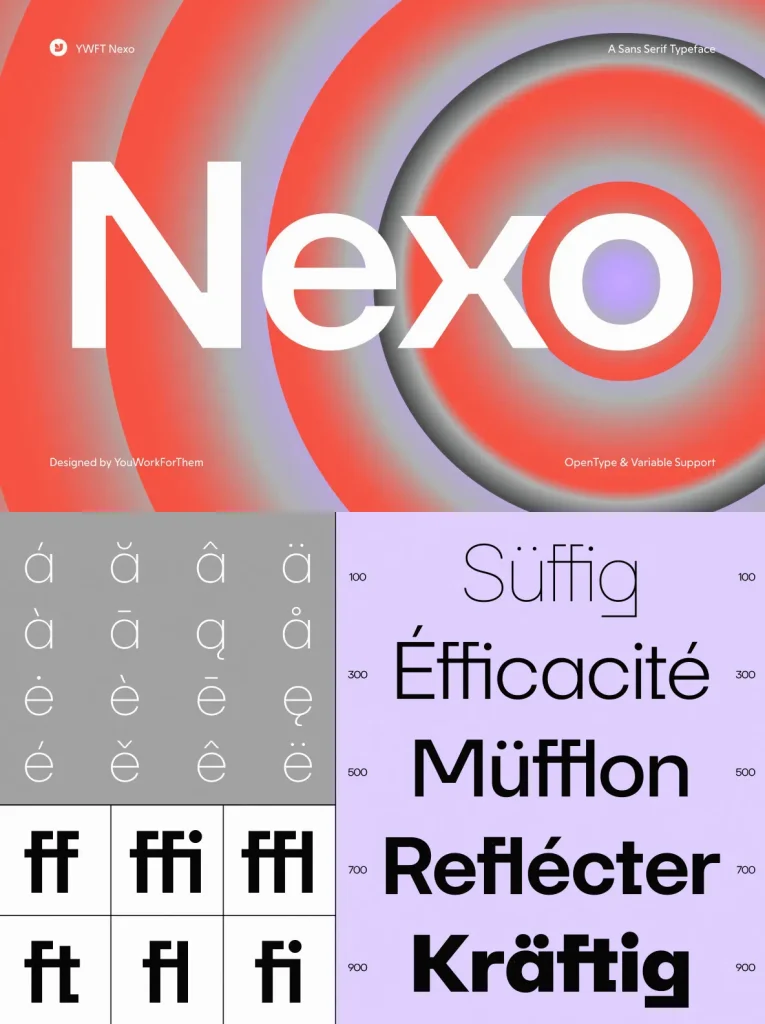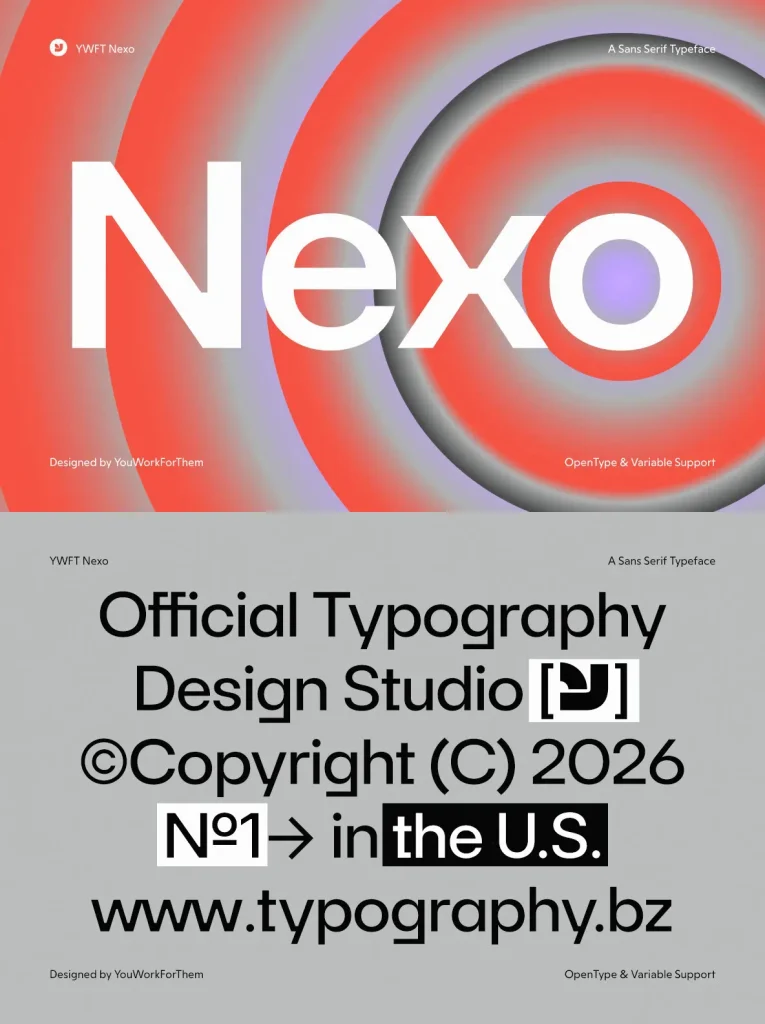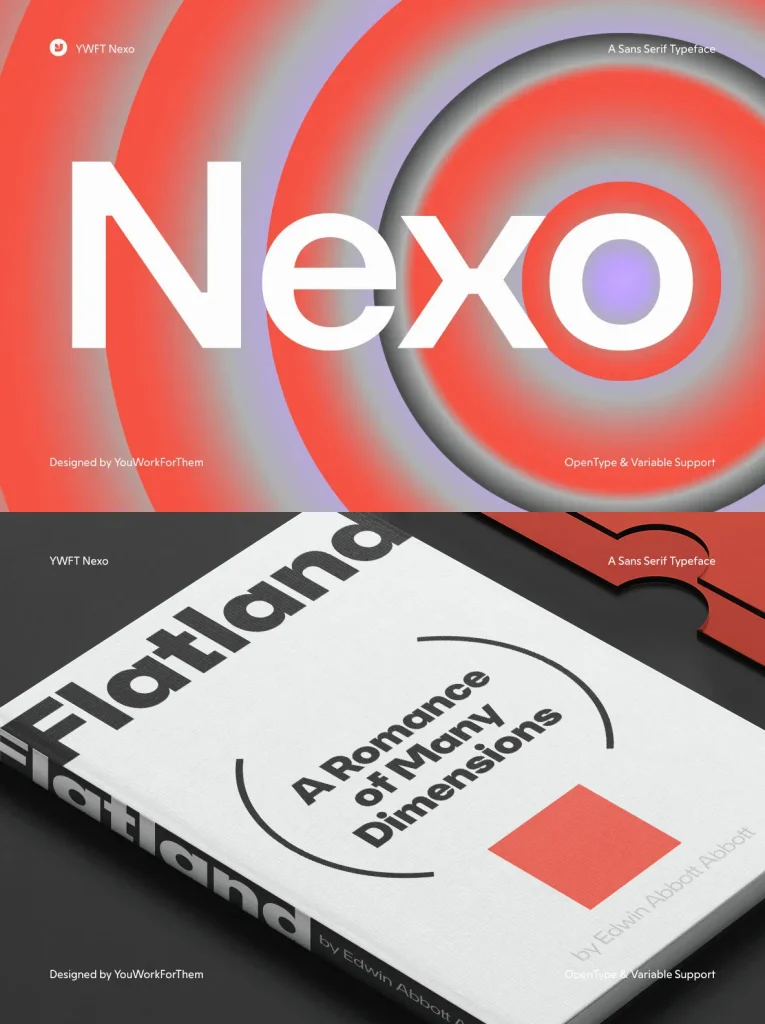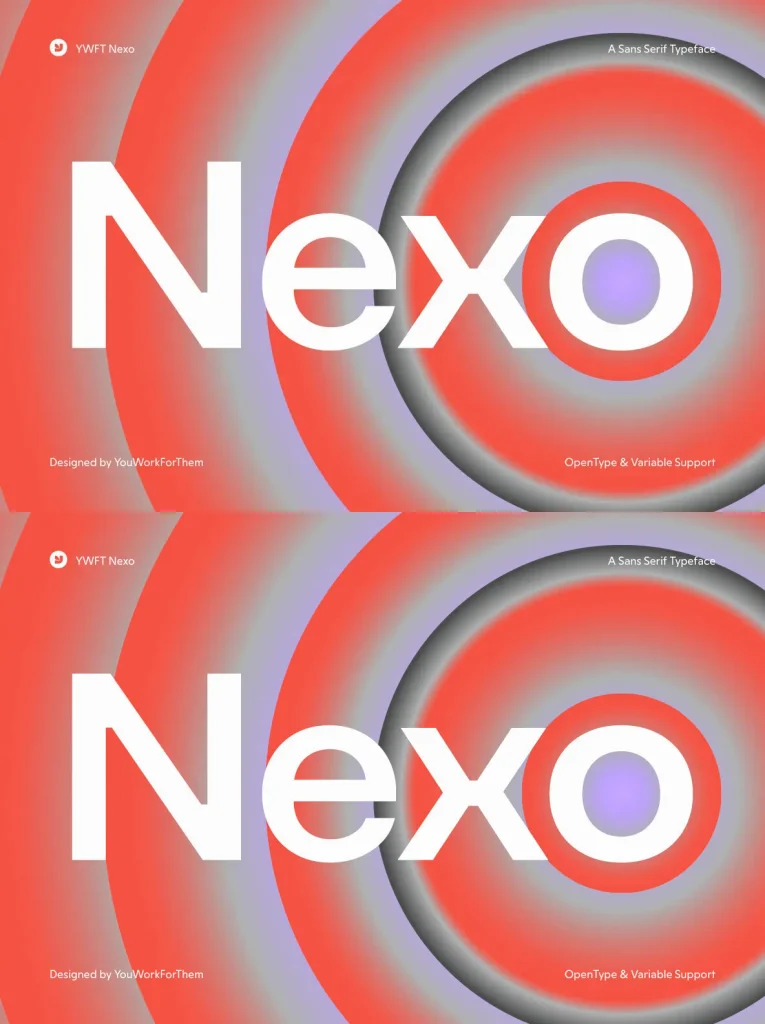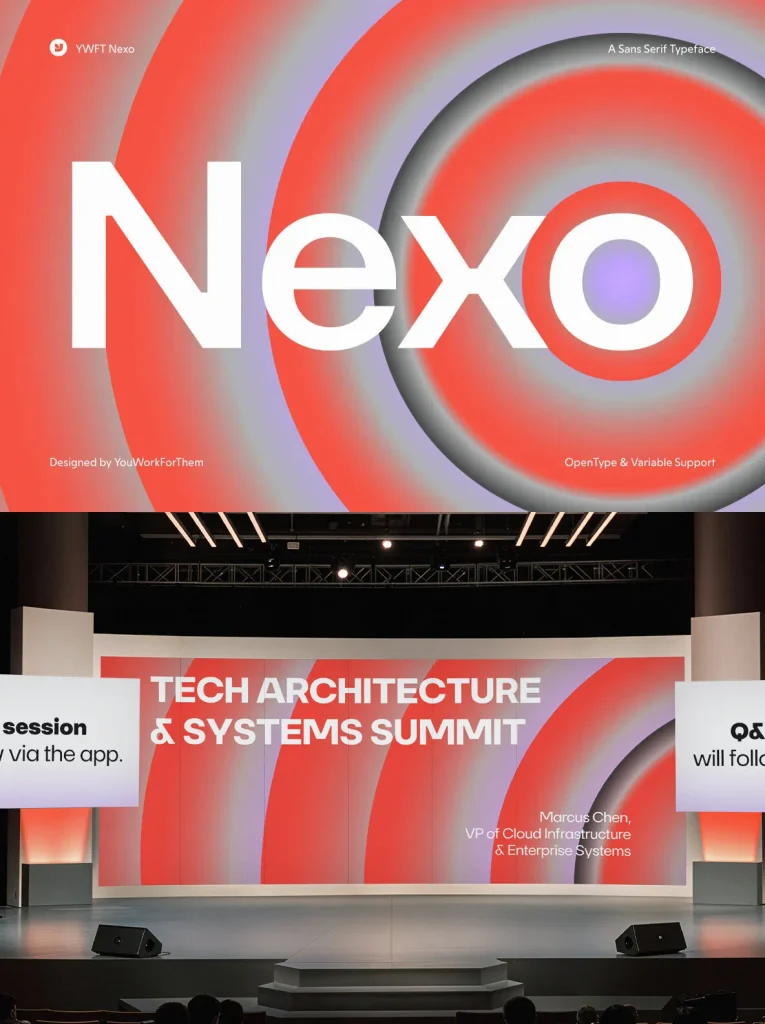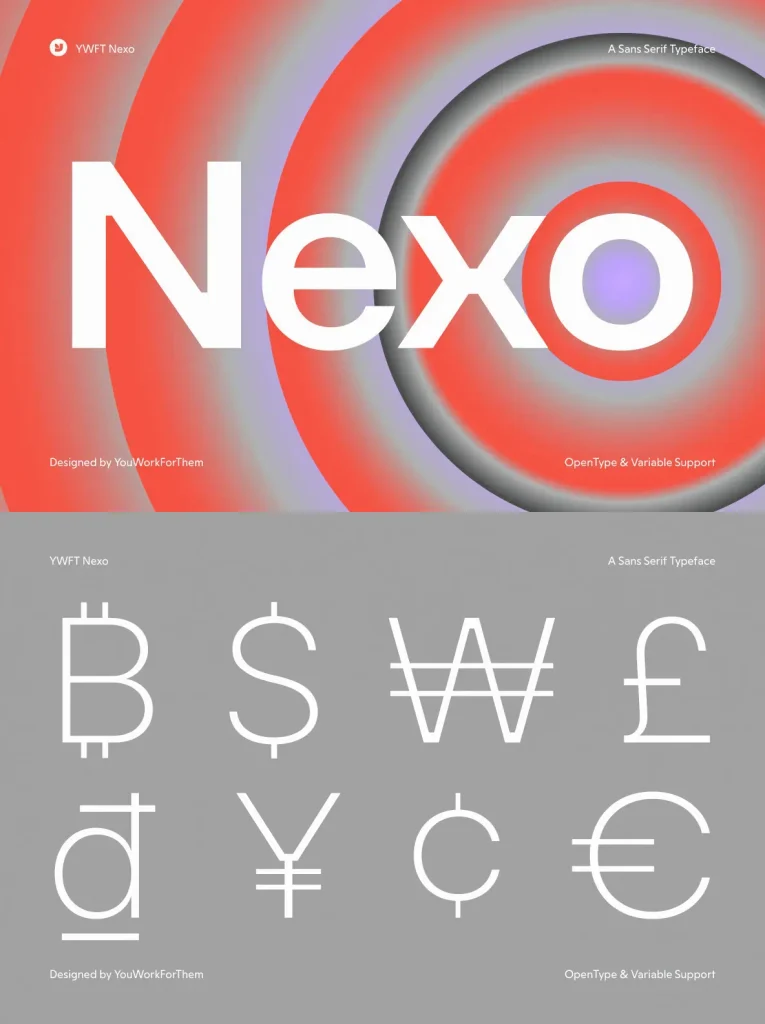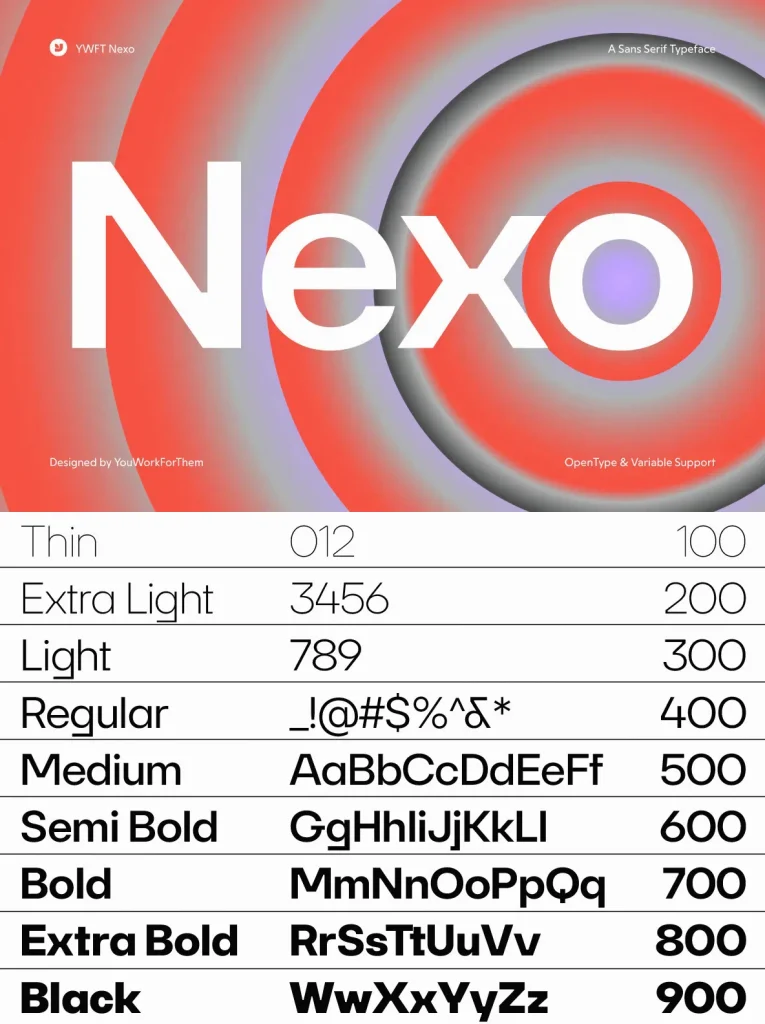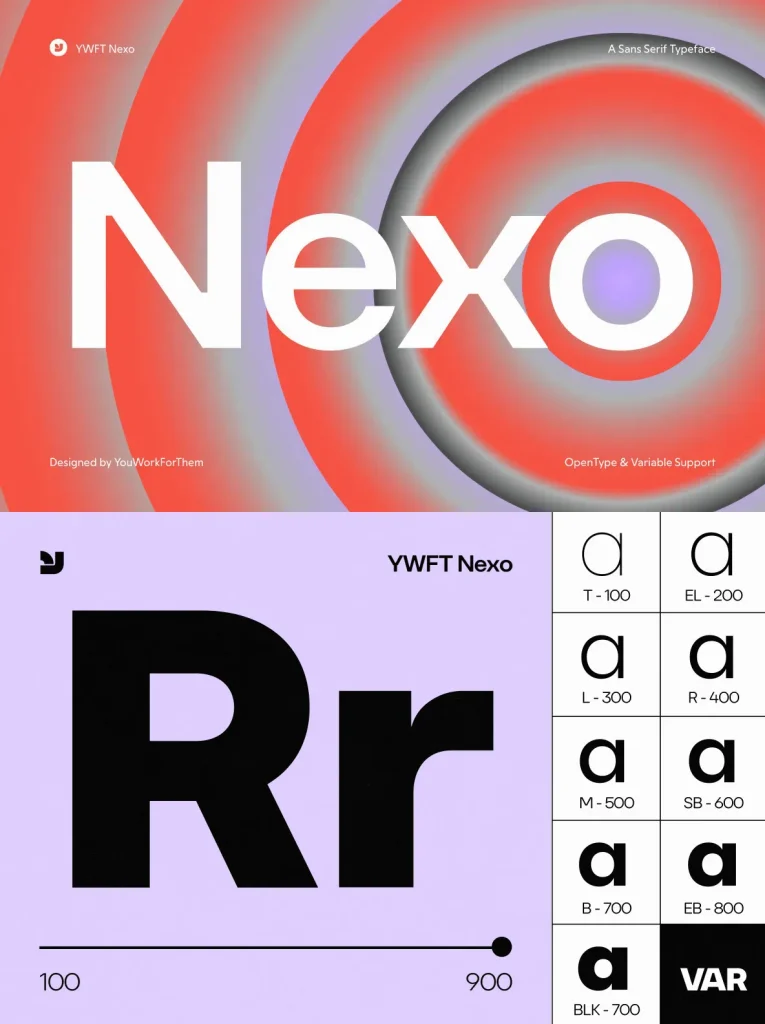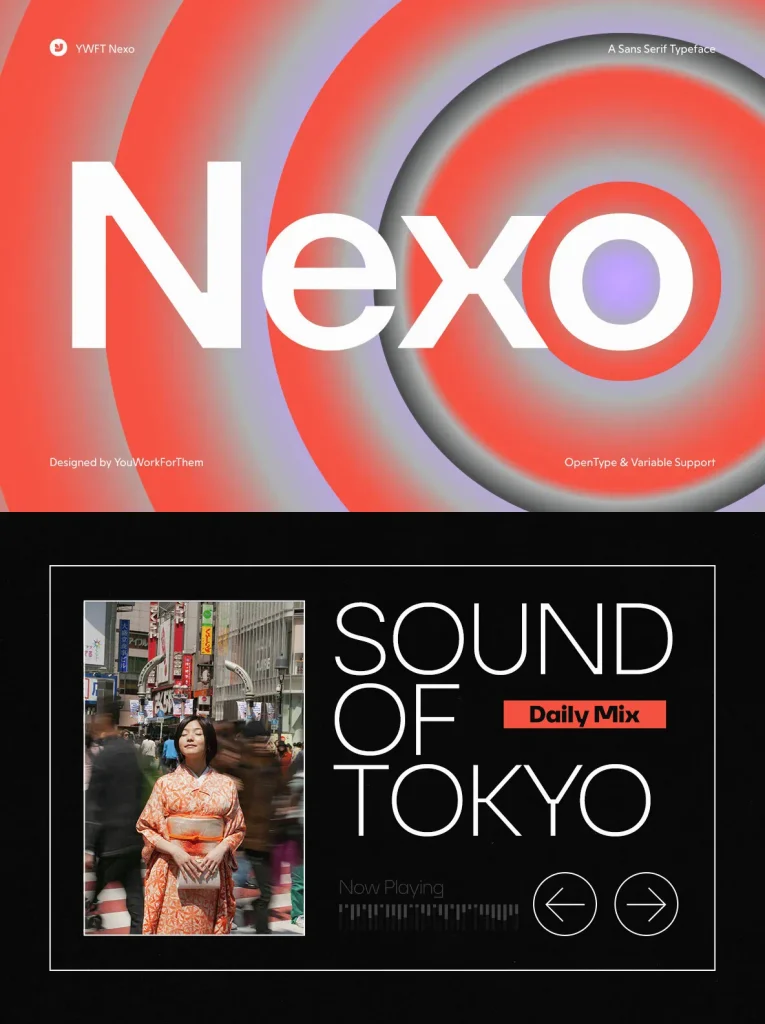
YWFT Nexo — Geometry for Digital Systems
YWFT Nexo is a geometric sans-serif
, built for the work modern brands need every day. Clean, neutral proportions in the lighter weights give way to a confident presence in heavier settings. This tonal range lets one typeface support a full brand system, from app UI and web interfaces to bold campaign headlines.
The letterforms stay precise without feeling cold. Carefully balanced apertures and stroke contrast help YWFT Nexo hold its structure at every size a screen demands. It suits digital typography that needs clarity, consistency, and a measured geometric voice across platforms.
One Workhorse, Eight Weights, One Variable Font
Nexo spans seven weights: Thin, ExtraLight, Light, Regular, Medium, SemiBold, Bold, and ExtraBold, plus a variable font covering the full weight axis in a single file. This range gives designers the flexibility to use Nexo across typographic hierarchies without reaching for a second typeface. With 441 glyphs and broad Latin coverage, it is built for multilingual projects and modern production workflows where a reliable, well-spaced geometric sans needs to perform consistently.
Use Cases